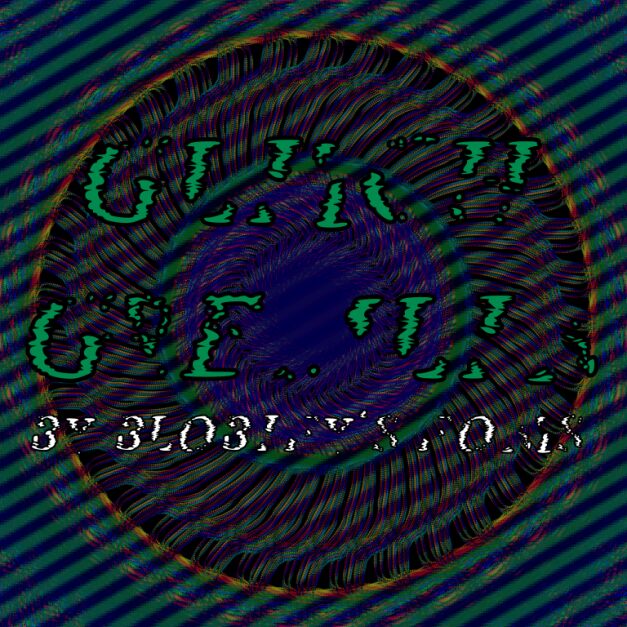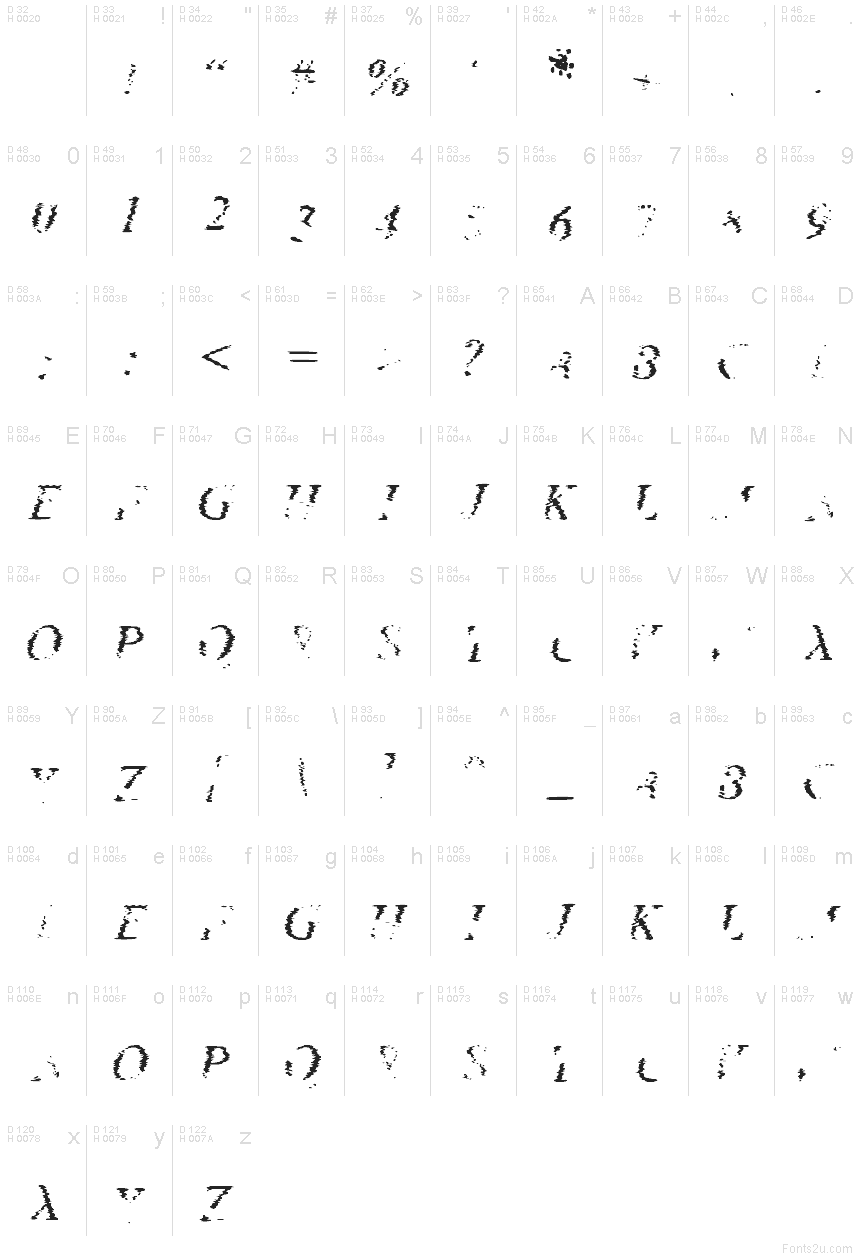
Glitch Gremlin Regular
Glitch Gremlin font by Blobify is a display type that captures a futuristic vibe through a modern, distressed aesthetic. The font combines digital distortion with cyberpunk influences to give a strong, glitch effect to the text. Distorted, experimental and moody visual carry through all characters equally.
Use this free techno display fonts for unusual media headlines, newspaper titles, magazine covers or music albums. It’s suitable for gaming logos and interfaces, poster designs or any other creative design project alike.